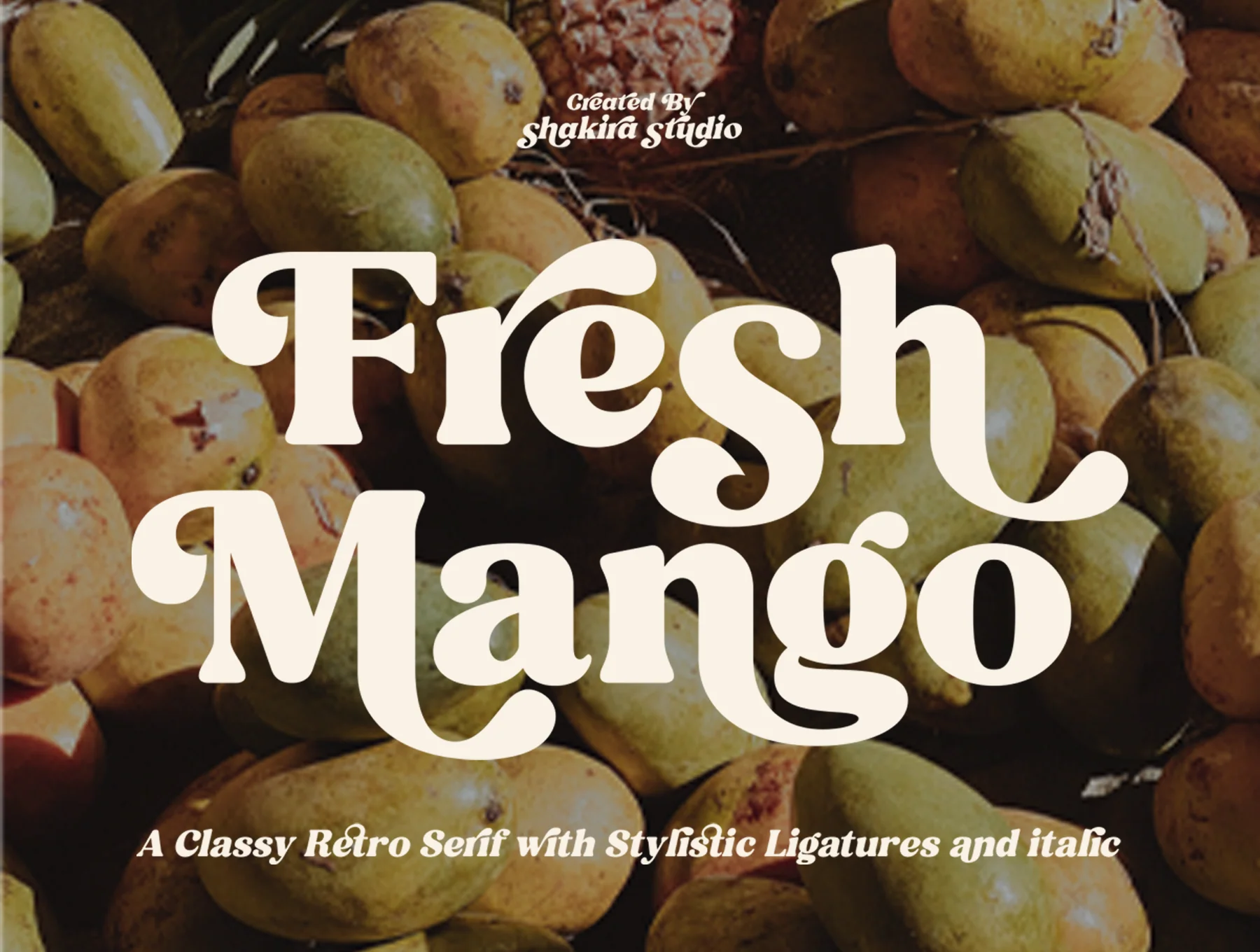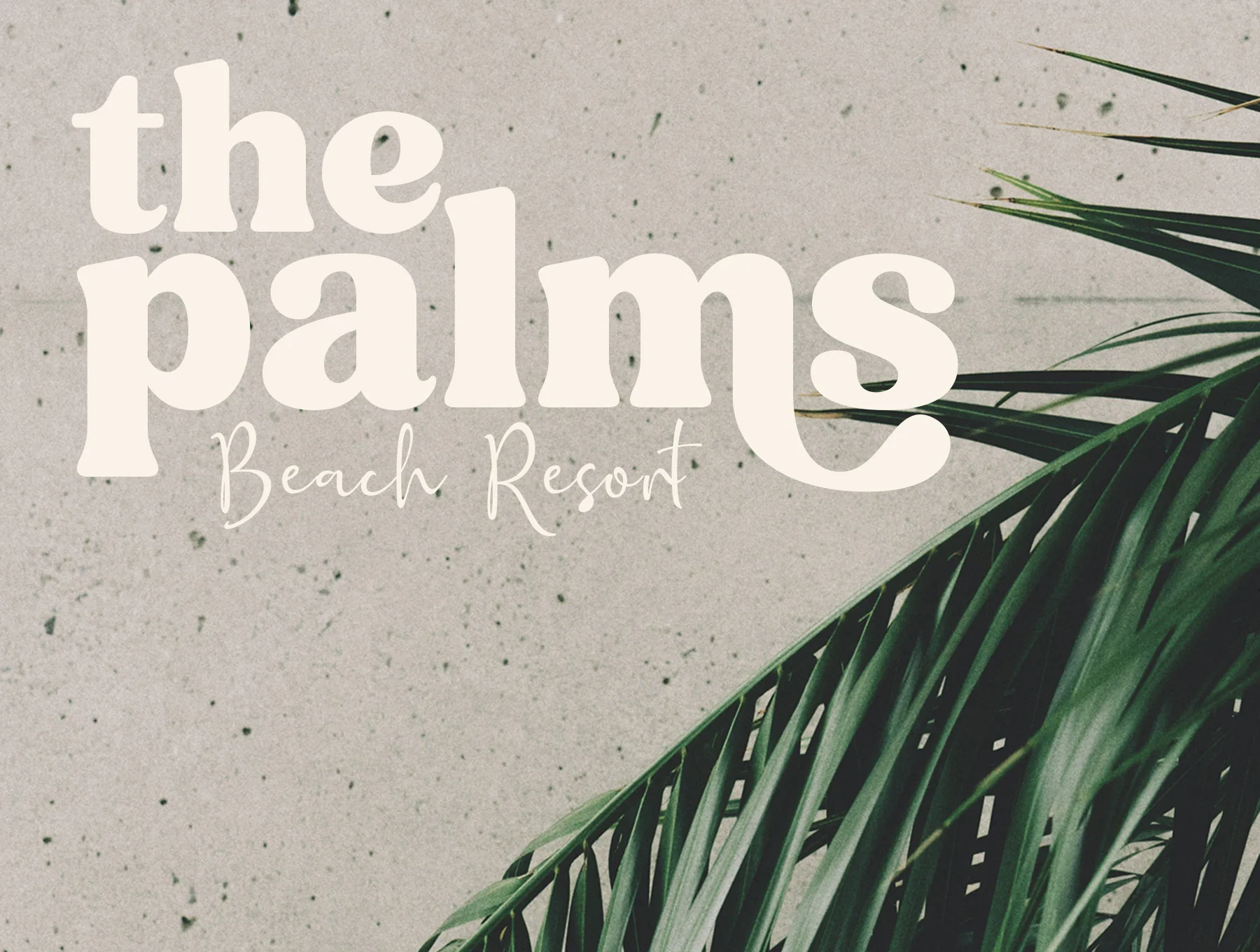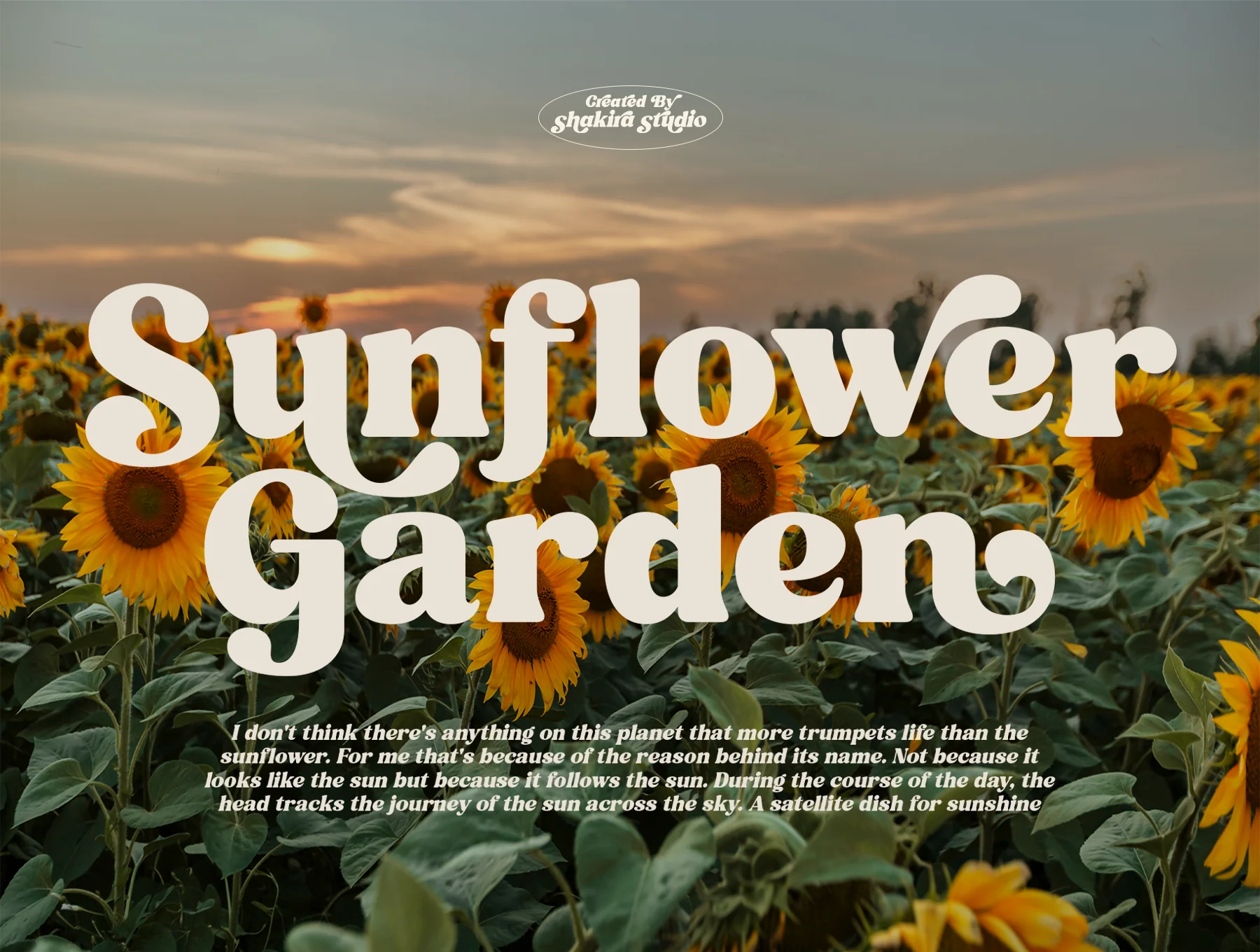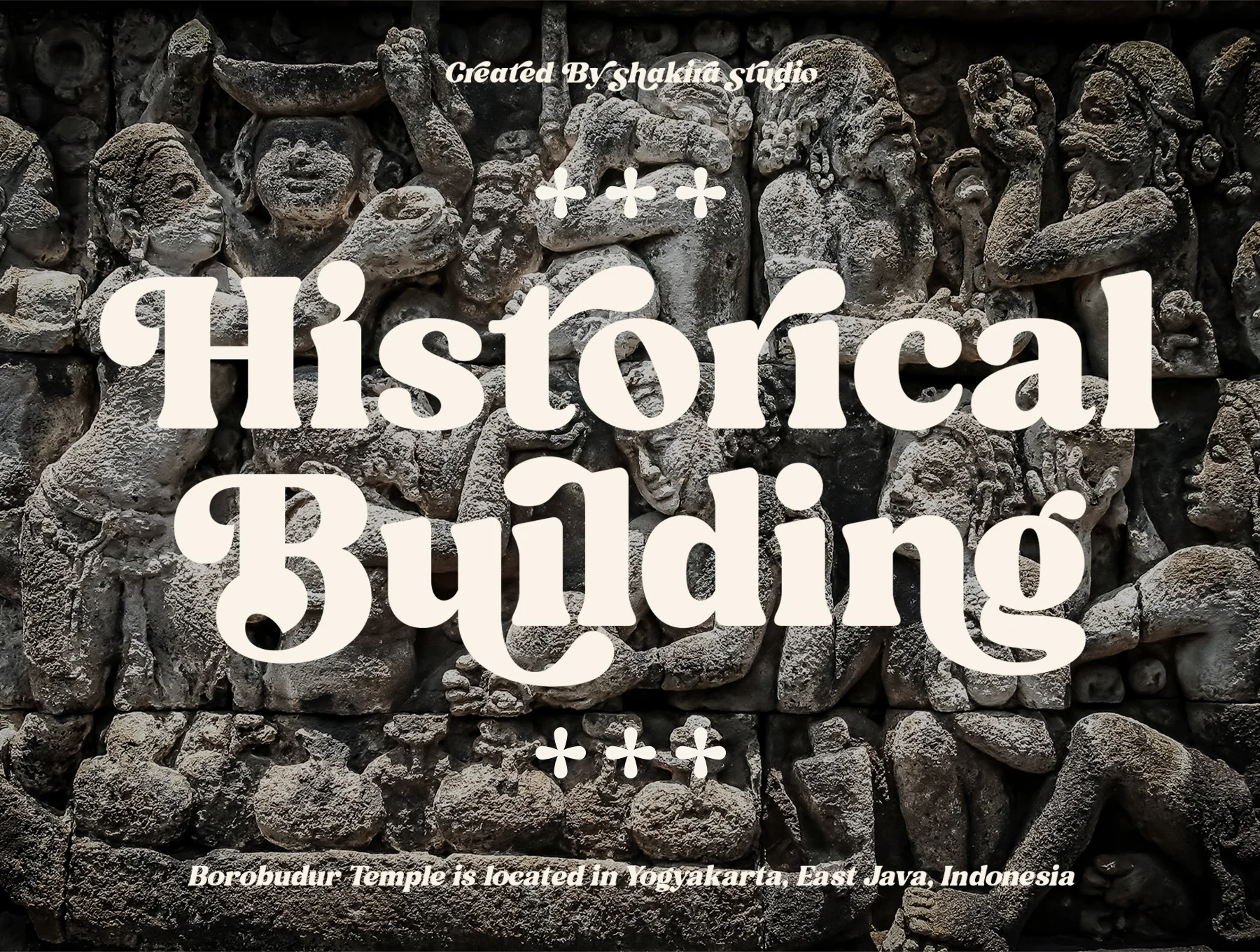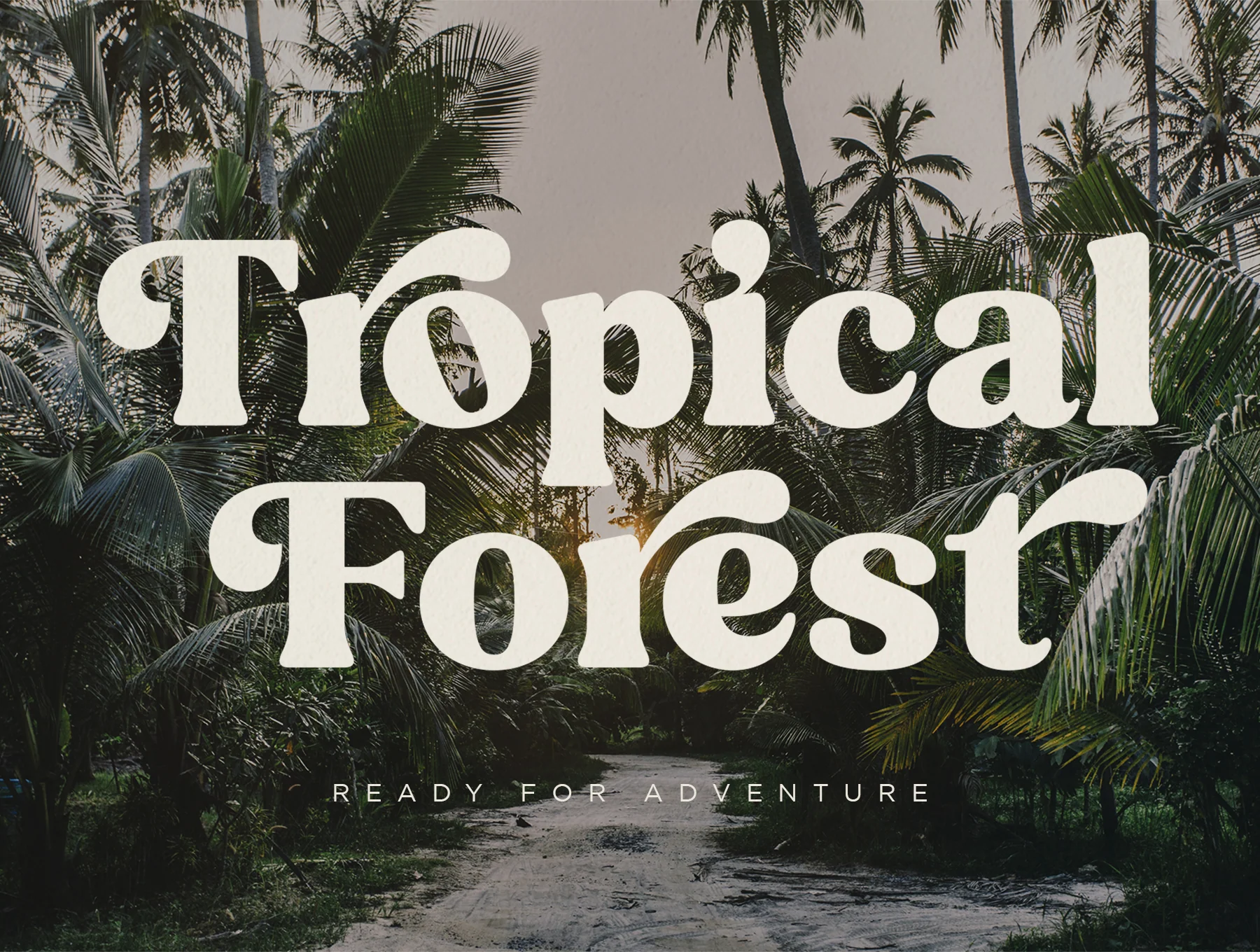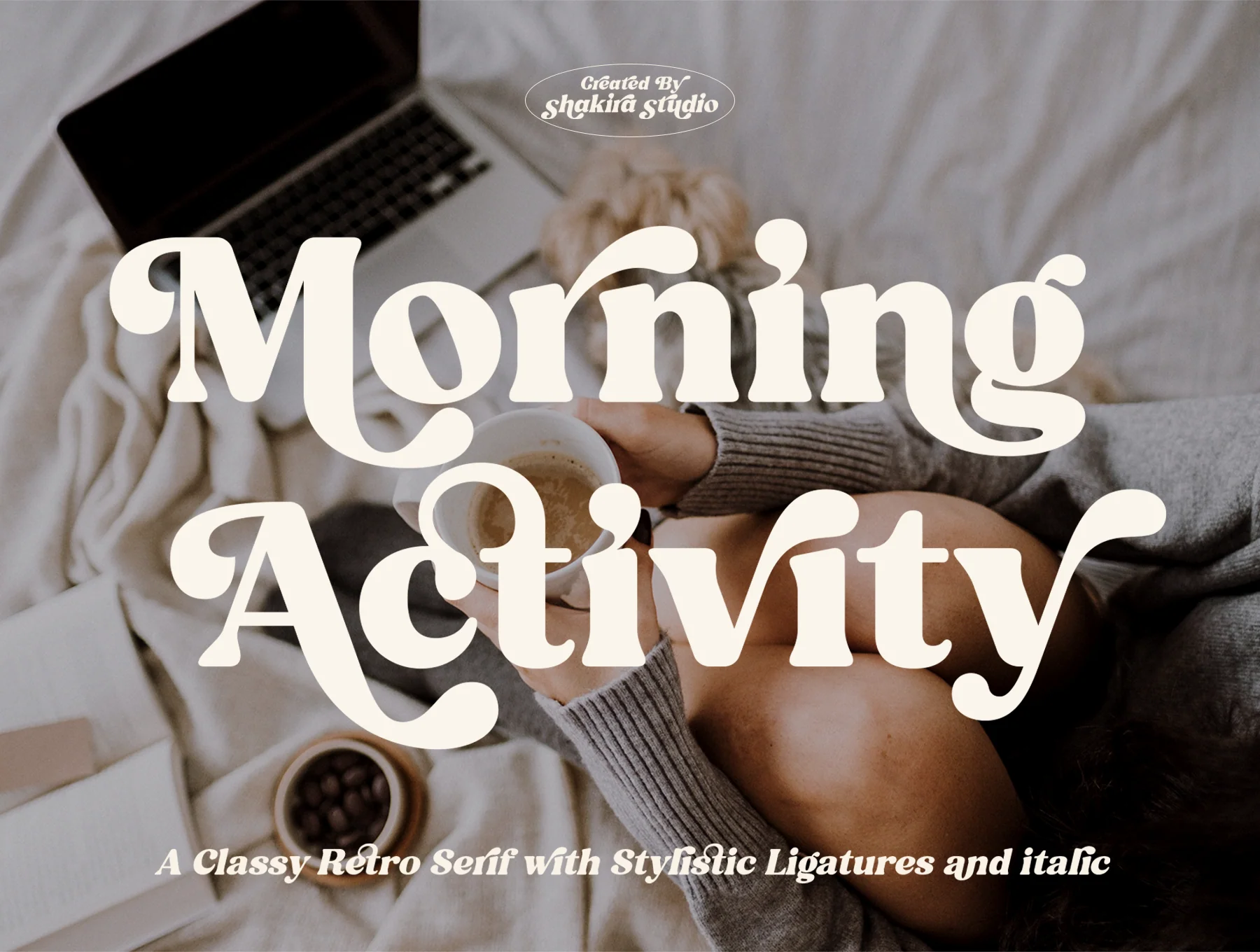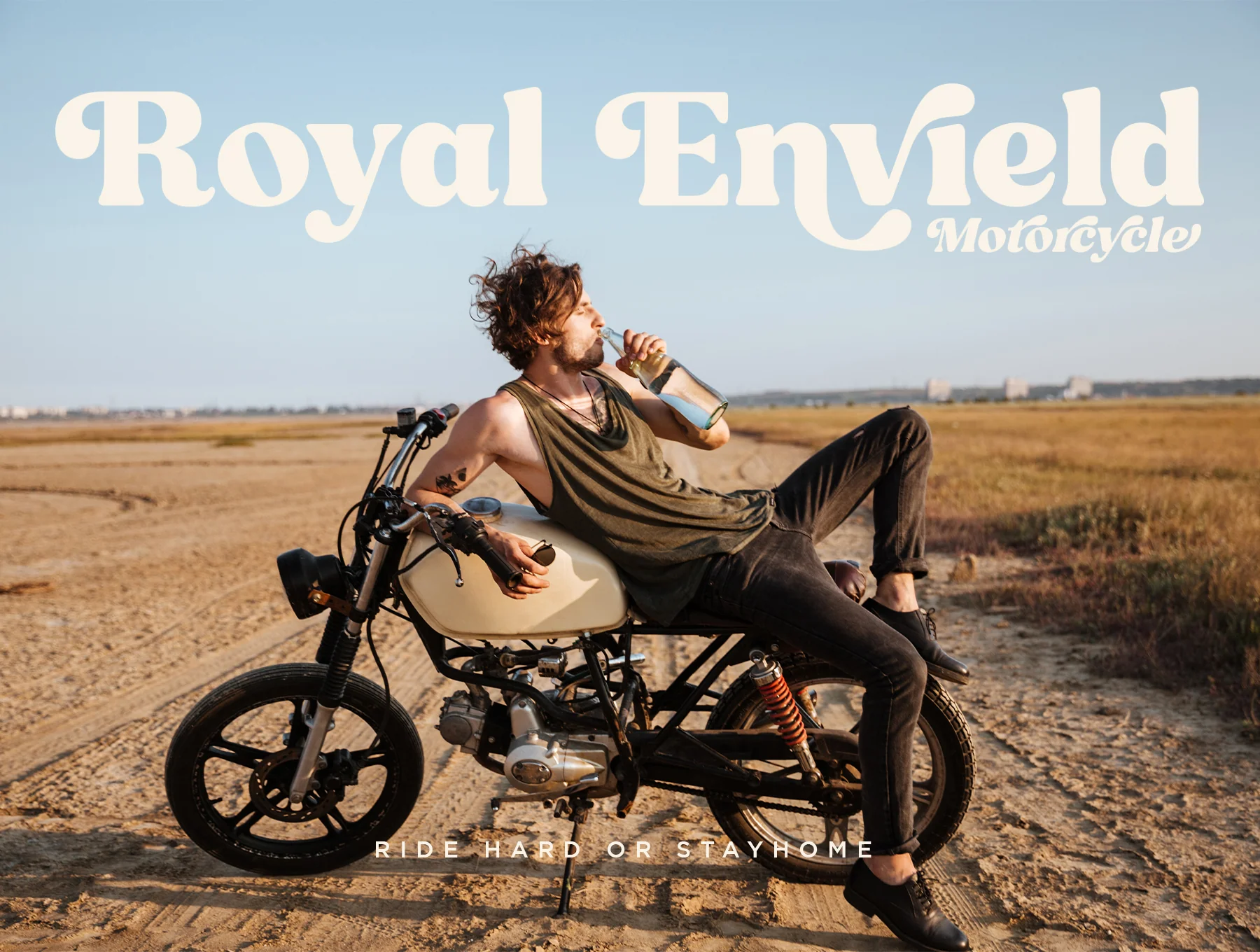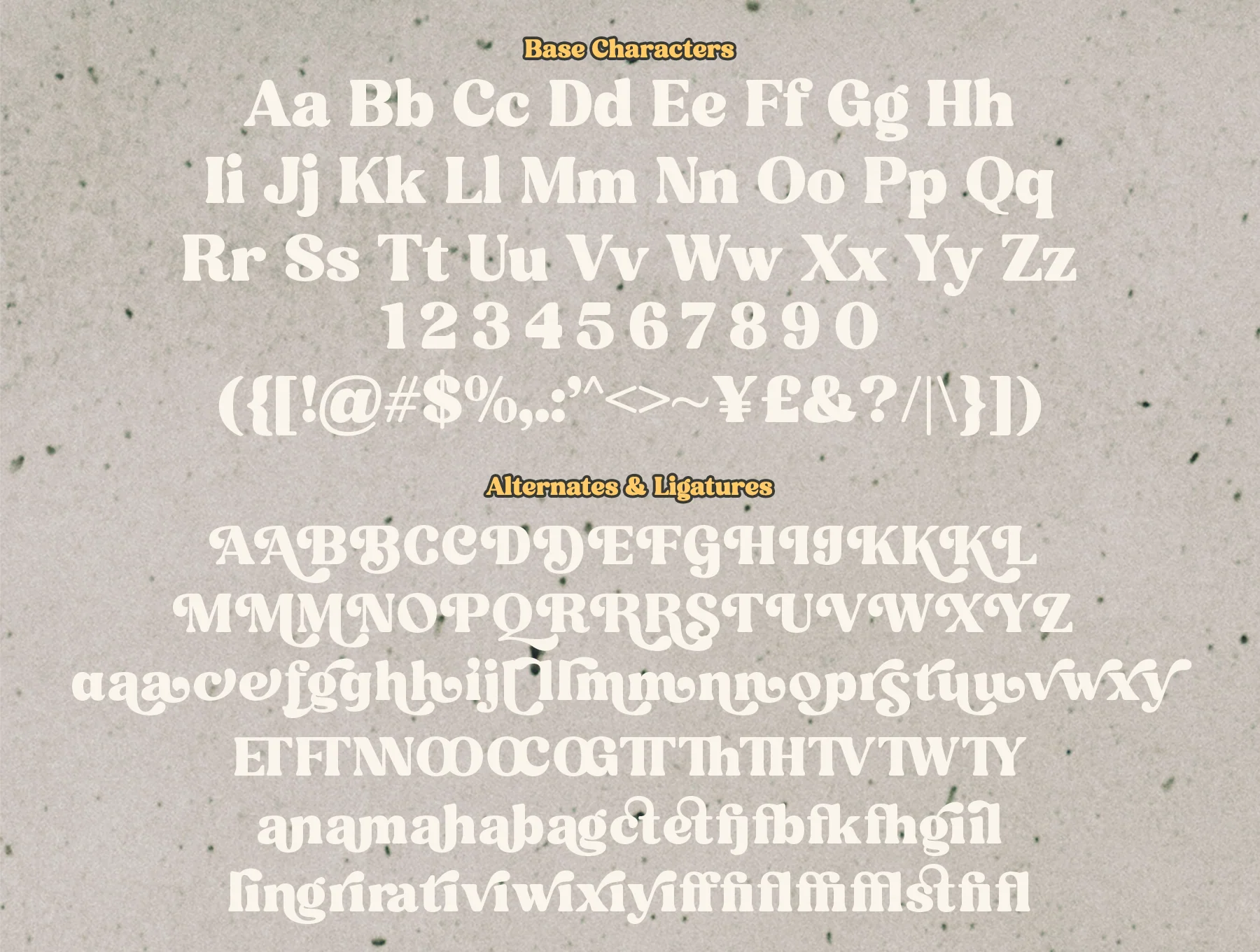
Fresh Mango - Retro Serif Font
Fresh Mango is an old-school serif typeface with strong, graceful letterforms and nostalgic character.
Standard A–Z and a–z glyphs
Alternate forms plus ligatures
Numerals and functional symbols
Meet Fresh Mango, a vintage-inspired serif typeface for striking headlines, refined logos, invitations, cards, quotes, ads, and more. It includes regular and italic styles in TTF, OTF, and WOFF, with uppercase/lowercase, numbers, punctuation, multilingual glyphs, ligatures, alternates, and PUA encoding. Works in Adobe apps and Microsoft Word.